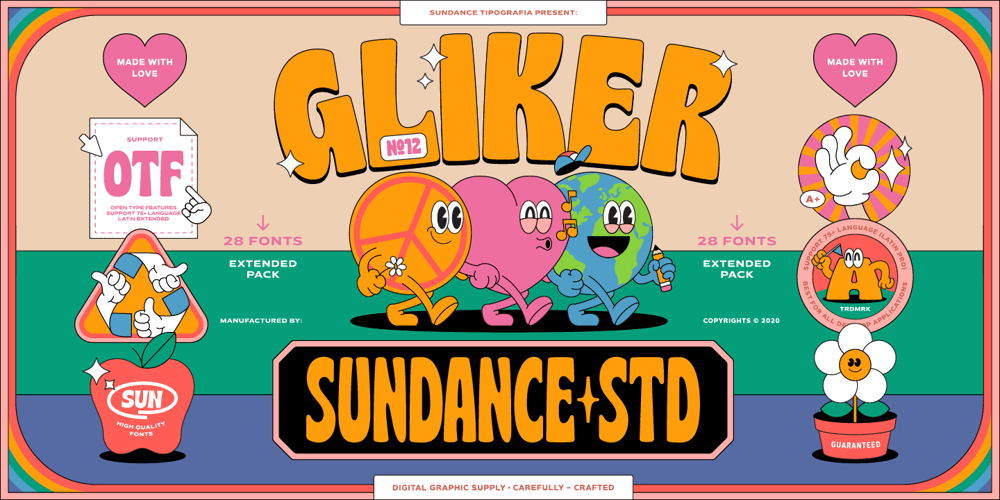
Gliker Font Family was designed by Cahya Sofyan and published by Studio Sun. Gliker contains 29 styles and family package options. Gliker was designer in the early 2019 and published in June 2020. Gliker is inspired by the characteristics of Hobo Typefaces. All corners of this typeface is founded, giving a more dynamic and vintage feel.Gliker is available in 4 Weights (Regular, Semi Bold, Bold, Black) and 7 Widths (Extra Condensed, Semi Condensed, Normal, Semi Expanded, Extra Expanded) with a total 28 Styles. Also includes support for 75+ Latin (Extended) Languages.